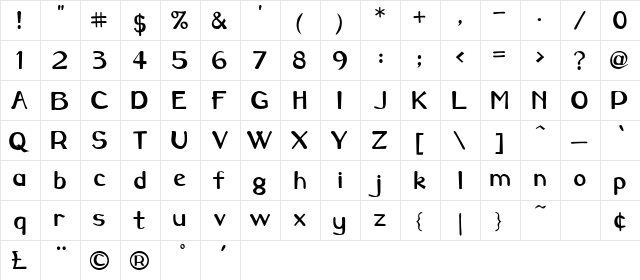
Caraway Bold
Design Context for Caraway Typeface
Caraway is a composed and adaptable typeface that performs quietly and consistently across a wide range of design contexts. Its bold stroke weight gives it real presence on the page.